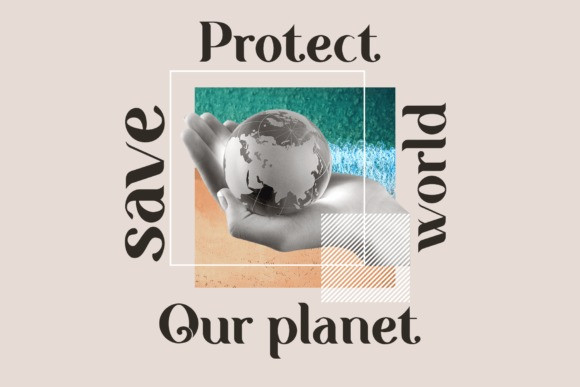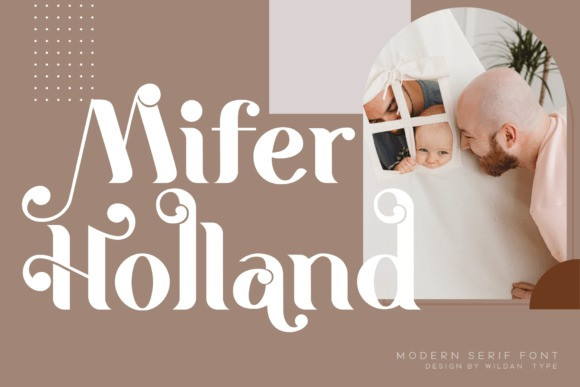
Mifer Holland Font
Mifer Holland Font is a new serif font specially crafted for branding and creative needs. Unique and awesome, this font will make your designs look beautiful and modern.